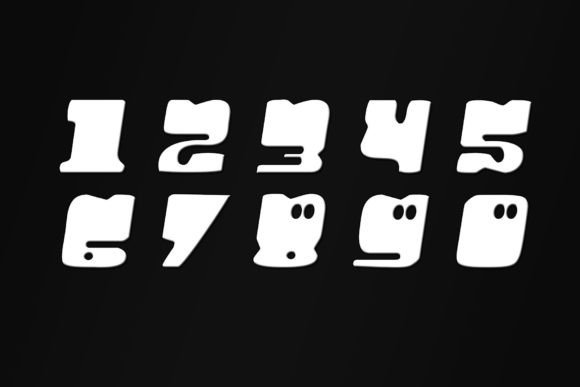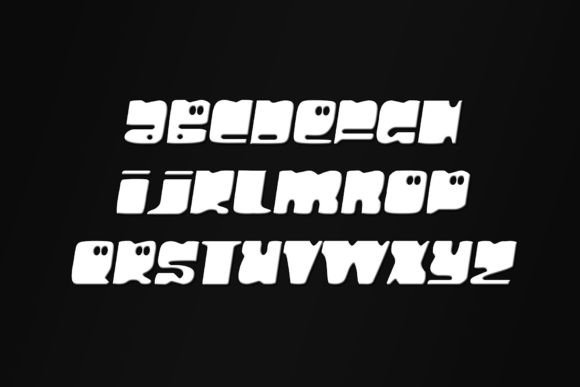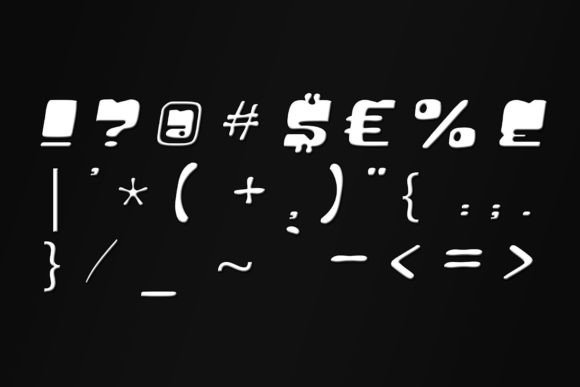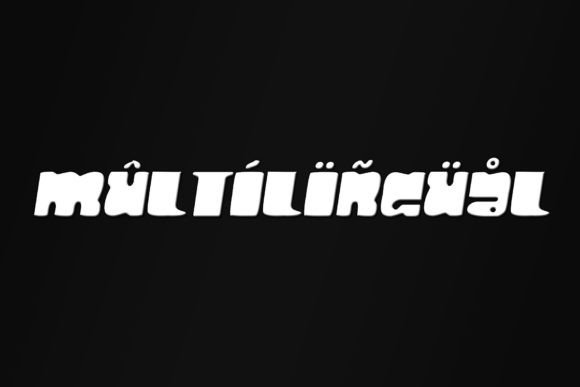
Unleash Your Creativity with Best Hide Font: The Ultimate Display Font
Are you tired of using the same old fonts in your designs? Do you want to add a touch of fun and quirkiness to your projects? Look no further than Best Hide Font! This chunky lettered font is sure to make your designs come alive and leave a lasting impression on your audience.
What is Best Hide Font?
Best Hide is a fun and quirky display font that is perfect for designers and crafters who want to add some personality to their work. With its chunky letters and playful vibe, this font is sure to stand out from the crowd. Whether you’re working on a logo, a poster, or a social media graphic, Best Hide Font is the perfect choice.
Key Features of Best Hide Font
- Chunky Letters: Best Hide Font features thick, chunky letters that are sure to grab attention.
- Playful Vibe: This font has a fun and quirky vibe that’s perfect for designs that need a little extra personality.
- Easy to Read: Despite its chunky letters, Best Hide Font is surprisingly easy to read, making it perfect for headlines and titles.
- Versatile: This font can be used for a wide range of projects, from logos and posters to social media graphics and more.
Why Use Best Hide Font?
So why should you use Best Hide Font in your designs? Here are just a few reasons:
- Adds Personality: Best Hide Font adds a touch of fun and quirkiness to your designs, making them more engaging and memorable.
- Stand Out from the Crowd: With its unique and playful vibe, Best Hide Font is sure to help your designs stand out from the crowd.
- Perfect for Crafters: Best Hide Font is also perfect for crafters who want to add a personal touch to their projects.
How to Use Best Hide Font
Using Best Hide Font is easy! Here are a few tips to get you started:
- Use it as a Headline Font: Best Hide Font is perfect for headlines and titles, where its chunky letters and playful vibe can really shine.
- Pair it with Other Fonts: Try pairing Best Hide Font with other fonts to create a unique and interesting look.
- Experiment with Colors: Don’t be afraid to experiment with different colors and textures to really make your design pop.
Best Hide Font in Action
So what can you create with Best Hide Font? Here are a few examples:
- Fun and Quirky Logos: Best Hide Font is perfect for creating fun and quirky logos that really stand out.
- Eye-Catching Posters: Use Best Hide Font to create eye-catching posters that grab attention and leave a lasting impression.
- Social Media Graphics: Best Hide Font is also perfect for social media graphics, where its playful vibe can really shine.
In conclusion, Best Hide Font is a fun and quirky display font that’s perfect for designers and crafters who want to add some personality to their work. With its chunky letters, playful vibe, and ease of use, this font is sure to make your designs come alive. So why not give it a try and see what amazing creations you can come up with?